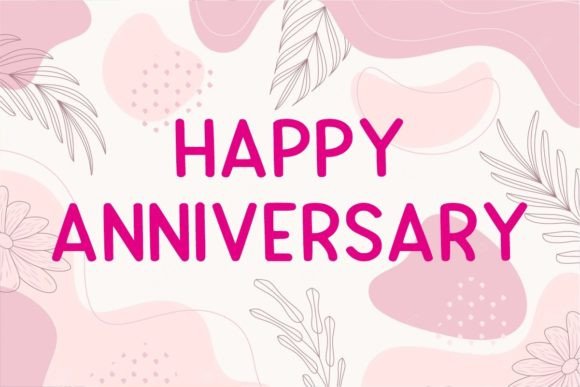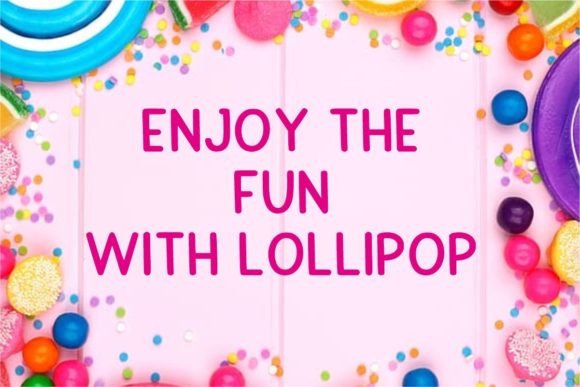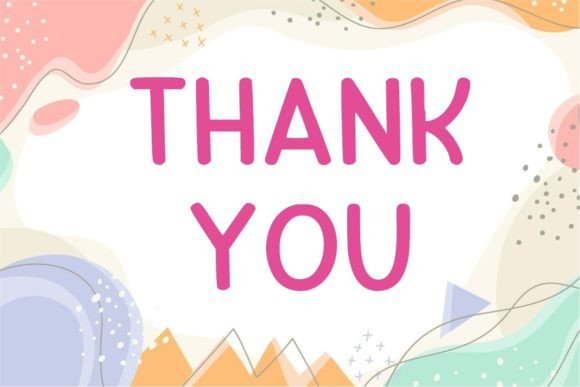
Avoqa Font: The Fun and Uplifting Custom Display Font You Need
Are you tired of using the same old fonts in your designs? Look no further than Avoqa Font, a fun and uplifting custom display font that’s sure to brighten up any project. With its unique blend of cuteness and elegance, Avoqa Font is the perfect addition to your design toolkit.
What is Avoqa Font?
Avoqa Font is a custom display font designed to add a touch of fun and personality to your designs. Its playful and uplifting vibe makes it perfect for projects that require a bit of whimsy, such as children’s books, greeting cards, and social media graphics. But don’t let its playful nature fool you – Avoqa Font also has an elegant side, making it suitable for more sophisticated projects like branding, packaging, and advertising.
Key Features of Avoqa Font
- Cute and Elegant Design: Avoqa Font strikes the perfect balance between cuteness and elegance, making it versatile enough to use in a wide range of projects.
- Custom Display Font: As a custom display font, Avoqa Font is designed to make a statement and grab attention.
- Easy to Read: Despite its playful design, Avoqa Font is easy to read, even at smaller sizes.
- Multilingual Support: Avoqa Font supports multiple languages, making it a great choice for global brands and projects.
Why Use Avoqa Font?
So why should you choose Avoqa Font for your next project? Here are just a few reasons:
- Adds Personality to Your Designs: Avoqa Font is a great way to add some personality to your designs and make them stand out from the crowd.
- Versatile: Avoqa Font can be used in a wide range of projects, from digital graphics to print materials.
- High-Quality Design: Avoqa Font is designed to high standards, ensuring that your designs look professional and polished.
Tips and Tricks for Getting the Most Out of Avoqa Font
- Use it as a Headline Font: Avoqa Font is perfect for headlines and titles, where its bold and playful design can really shine.
- Pair it with Other Fonts: Avoqa Font pairs well with other fonts, so don’t be afraid to experiment with different combinations.
- Use it in Digital Graphics: Avoqa Font is perfect for digital graphics, such as social media posts, blog headers, and website titles.
- Experiment with Colors: Avoqa Font looks great in a wide range of colors, so don’t be afraid to experiment and find the perfect hue for your project.
In conclusion, Avoqa Font is a fun and uplifting custom display font that’s perfect for designers and crafters looking to add some personality to their projects. With its unique blend of cuteness and elegance, Avoqa Font is versatile enough to use in a wide range of projects, from digital graphics to print materials. So why not give Avoqa Font a try and see the difference it can make in your designs?